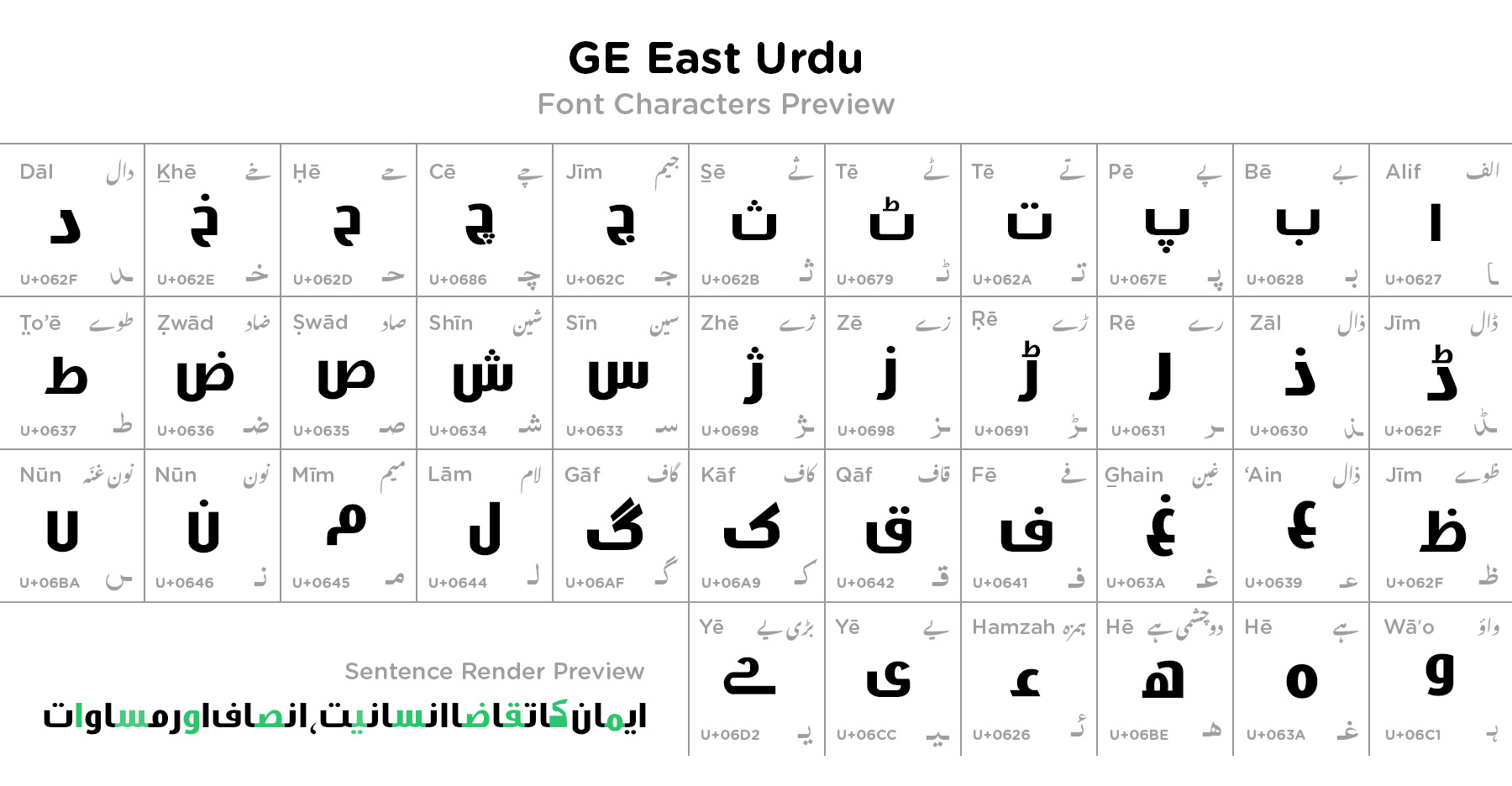
GE East Urdu is developed by a Pakistani typographer and calligrapher, Ishtiaq Ali Attari Qadri, from Faisalabad, Pakistan. It is a modern and bold Urdu font and was released on January 30, 2016. Displaying a geometric aesthetic with its filled and wide letters, this font draws inspiration from the Naskh script, evident in its horizontal emphasis. It supports various languages, including Arabic, Latin, Greek, and Urdu, catering to diverse typographic needs. Its font-weight remains consistent, registering as "regular," although its bold nature makes it more suitable for short texts rather than prolonged reading sessions. Moreover, with 444 characters and 497 glyphs, the font tends to fit in seamlessly in different design applications.